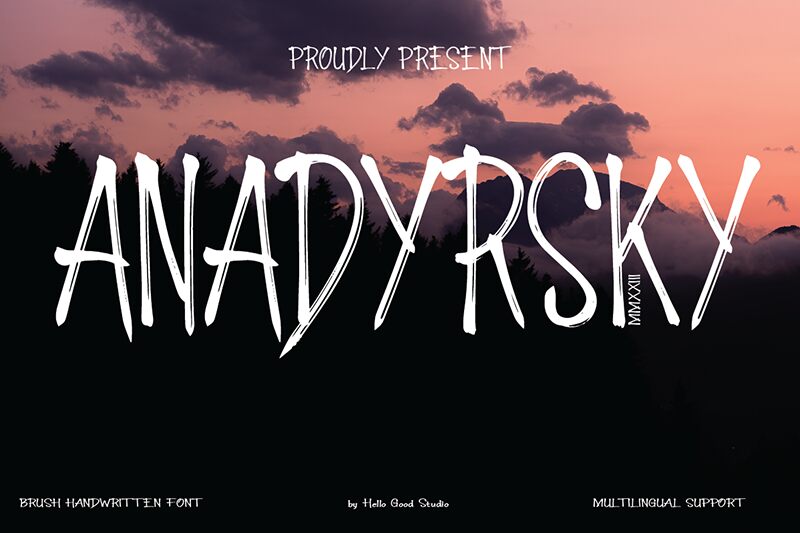
Anadyrsky
Anadyrsky font by Studio Hello Good epitomizes expressive brush-like textures with artistic flair. Its casual tone and contemporary appeal exhibit freeform script influences, making it ideal for projects seeking a hand-crafted aesthetic. Bold, fluid strokes and lively character shapes make this style perfect for both short and long texts.
Use it to create captivating posters, eye-catching titles, food packaging designs, logo designs, website headers, social media promotions, magazines covers/titles or just select headlines. The brush font also suits branding purposes seamlessly completing your advertising banners and more!